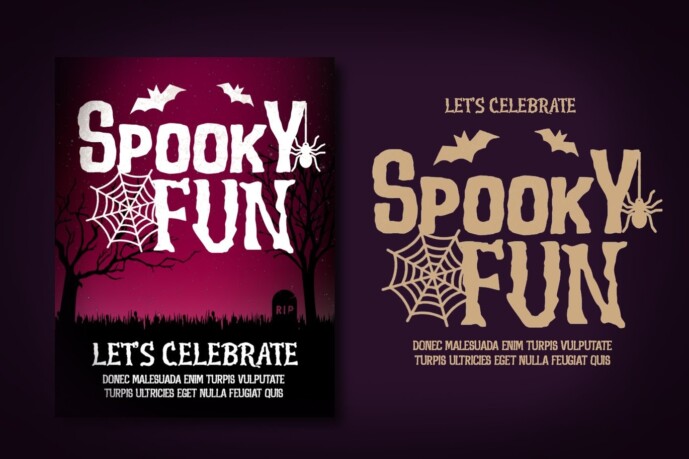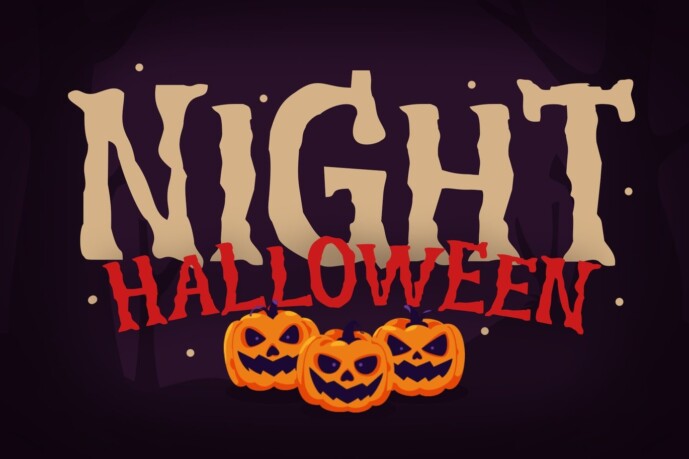
Revenge Dreams Font
Revenge Dreams Font is perfect for many projects: book, magazines, Logo, branding, photography, quotes, blog header, poster, ads, etc.